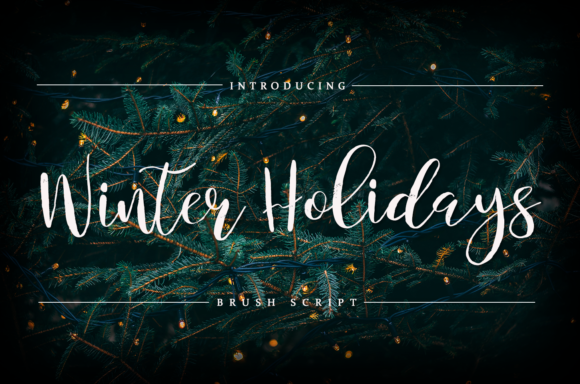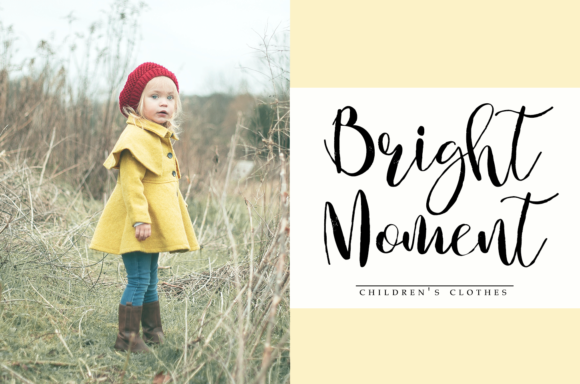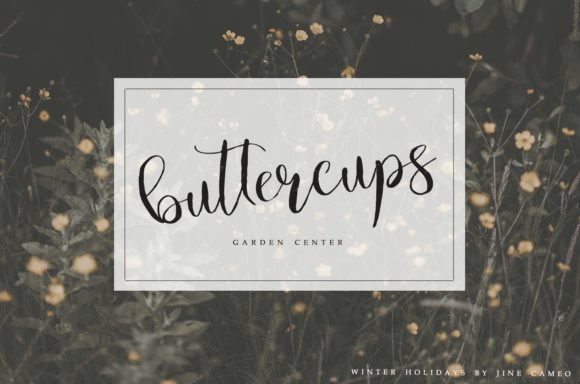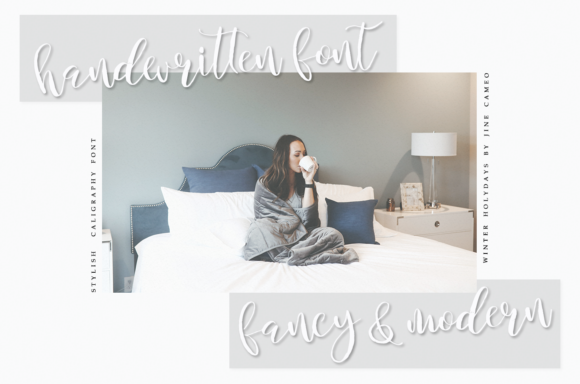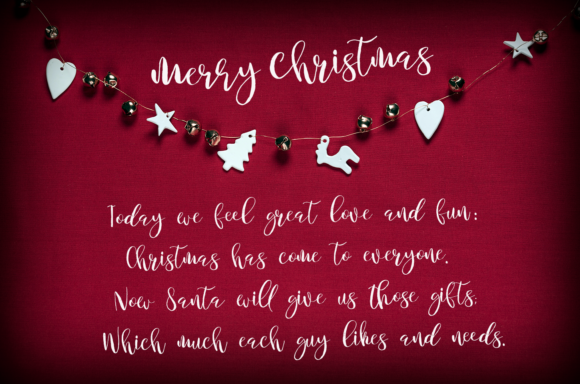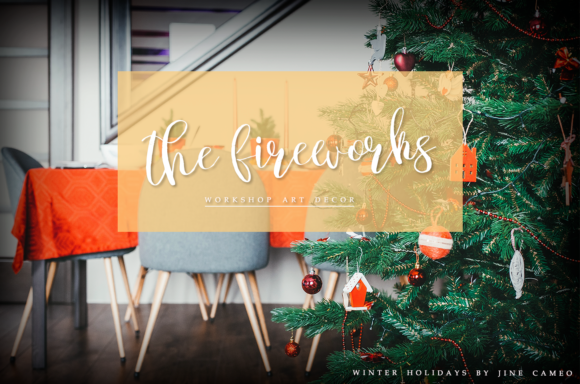
Winter Holidays Font
About Winter Holidays Font
Winter Holidays is a wintery and charming script font that feels nostalgic and cozy. Get inspired by its unique charm!